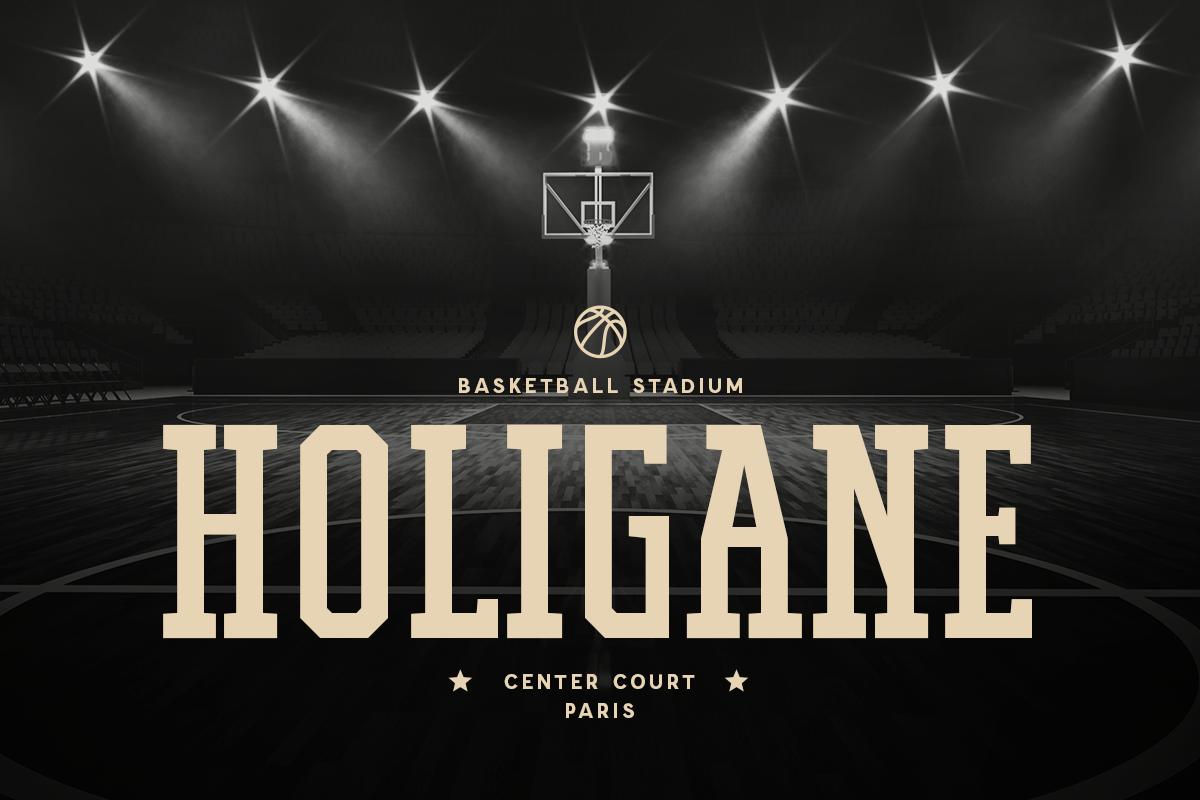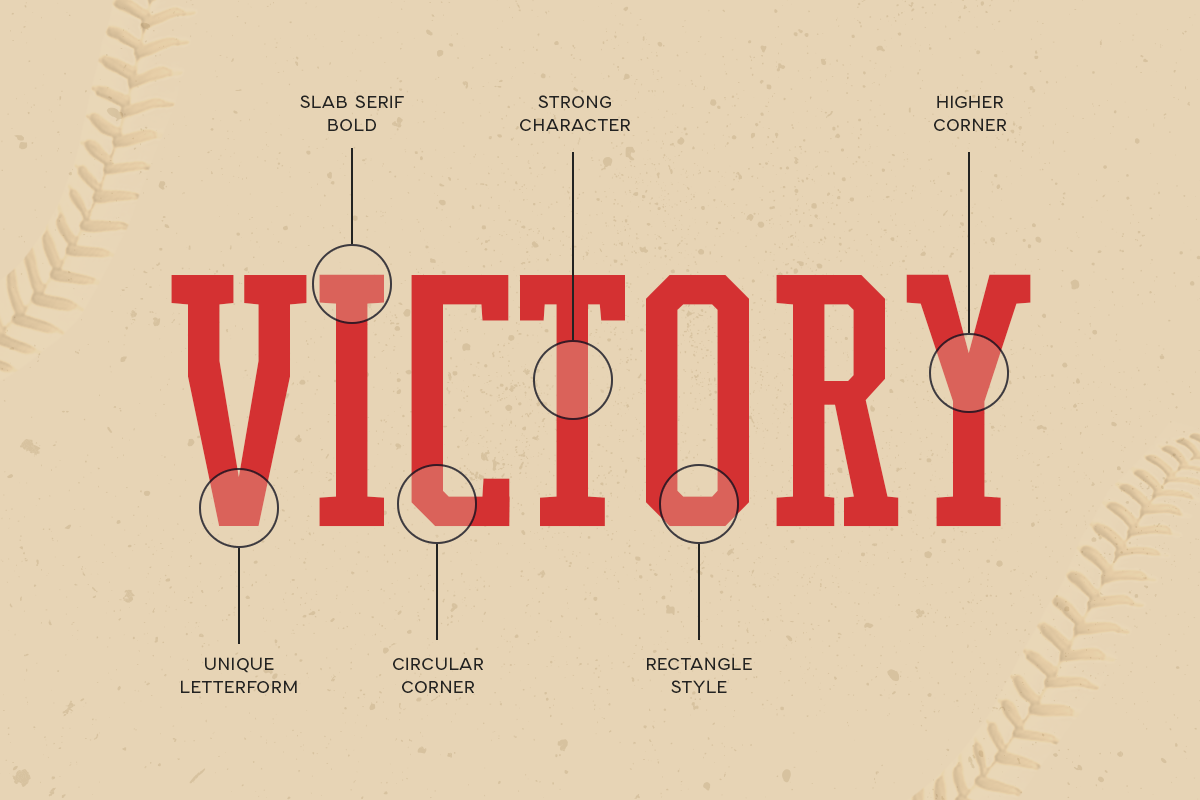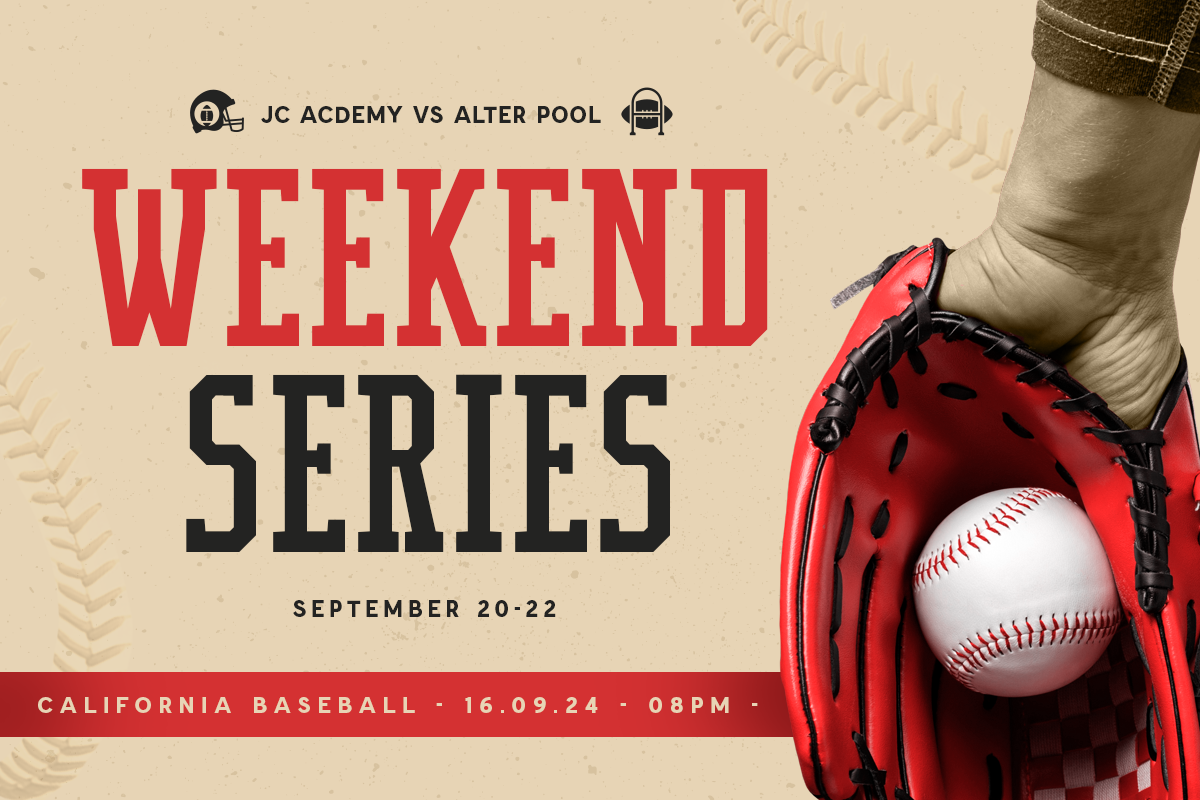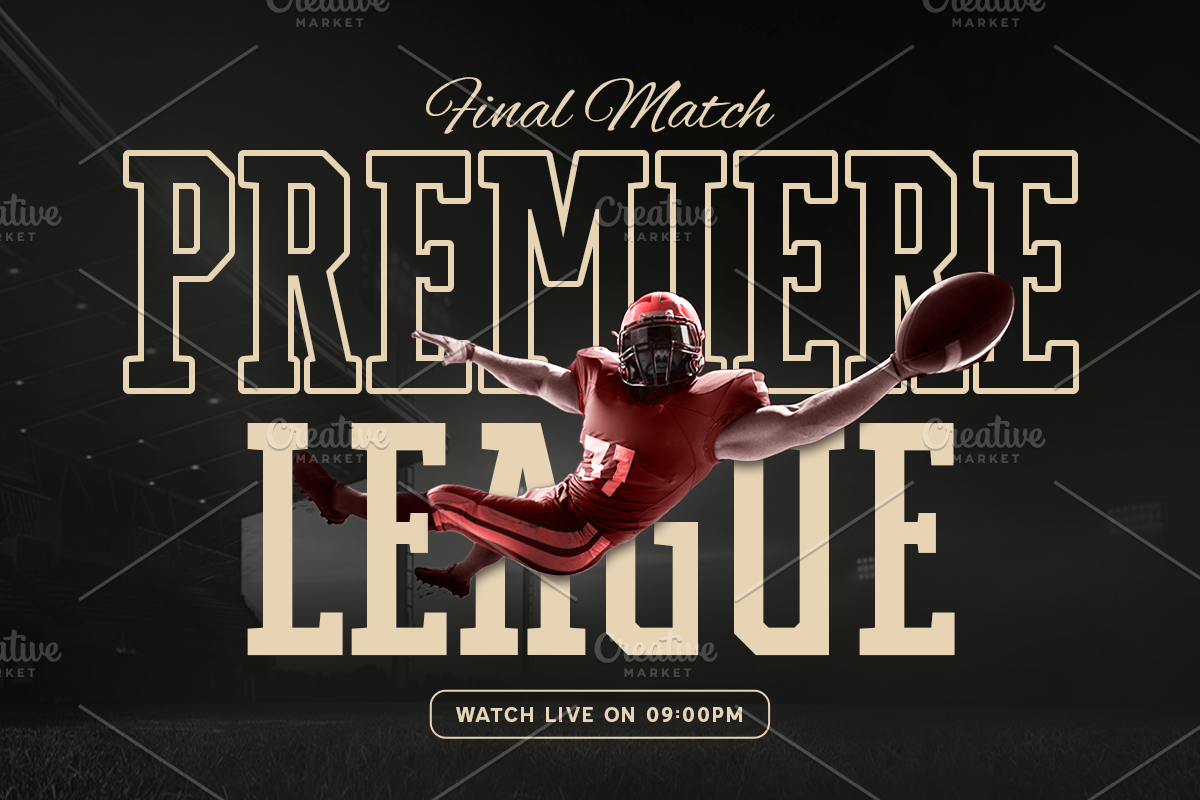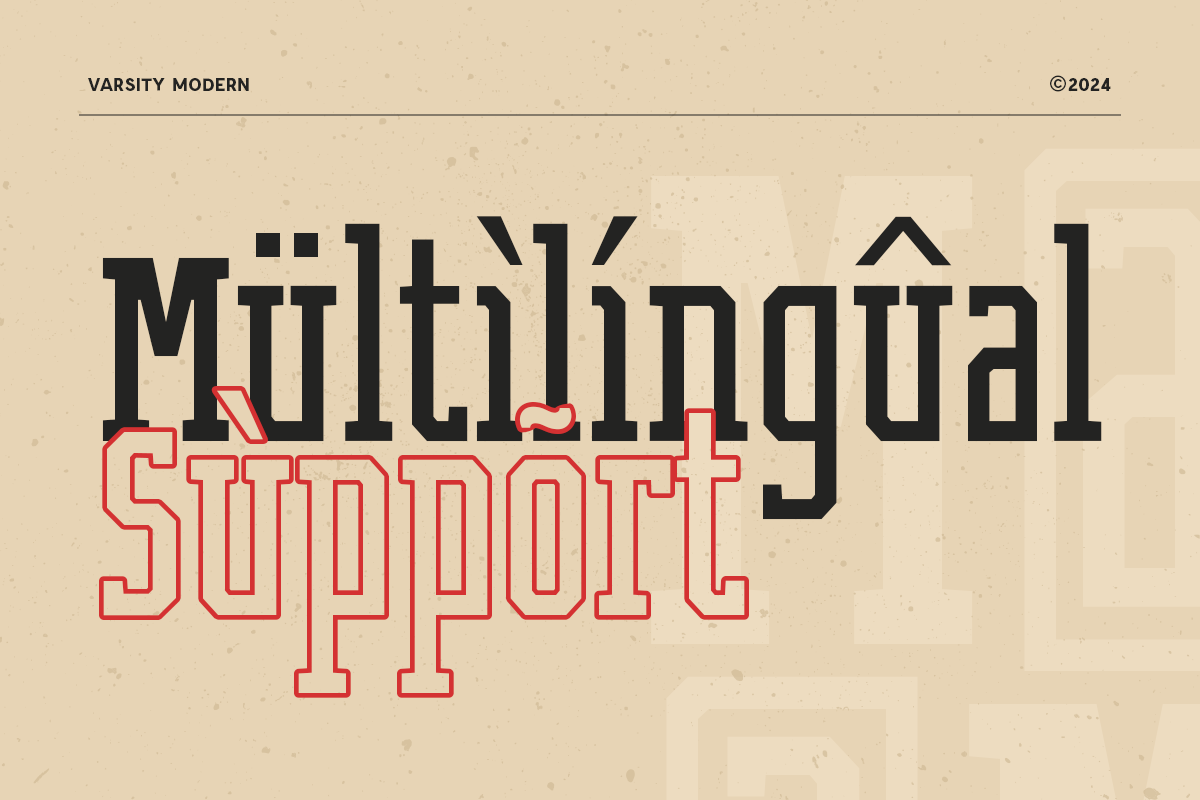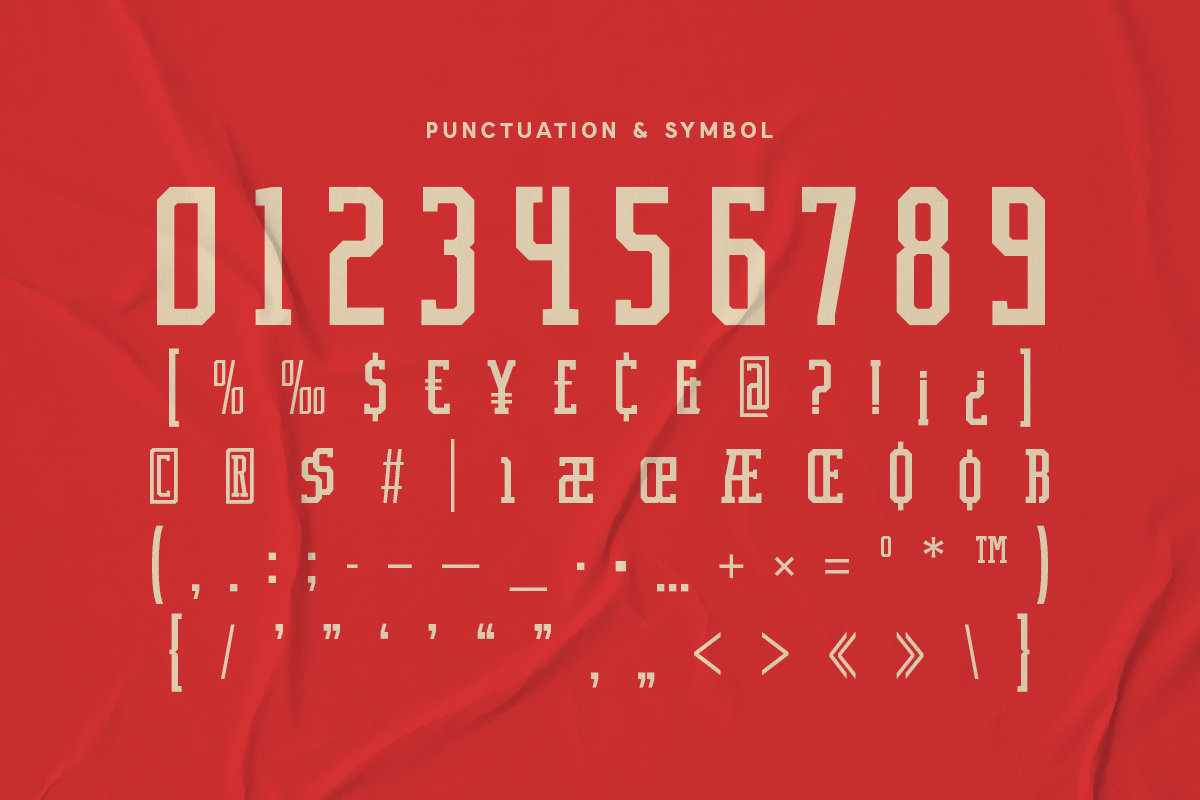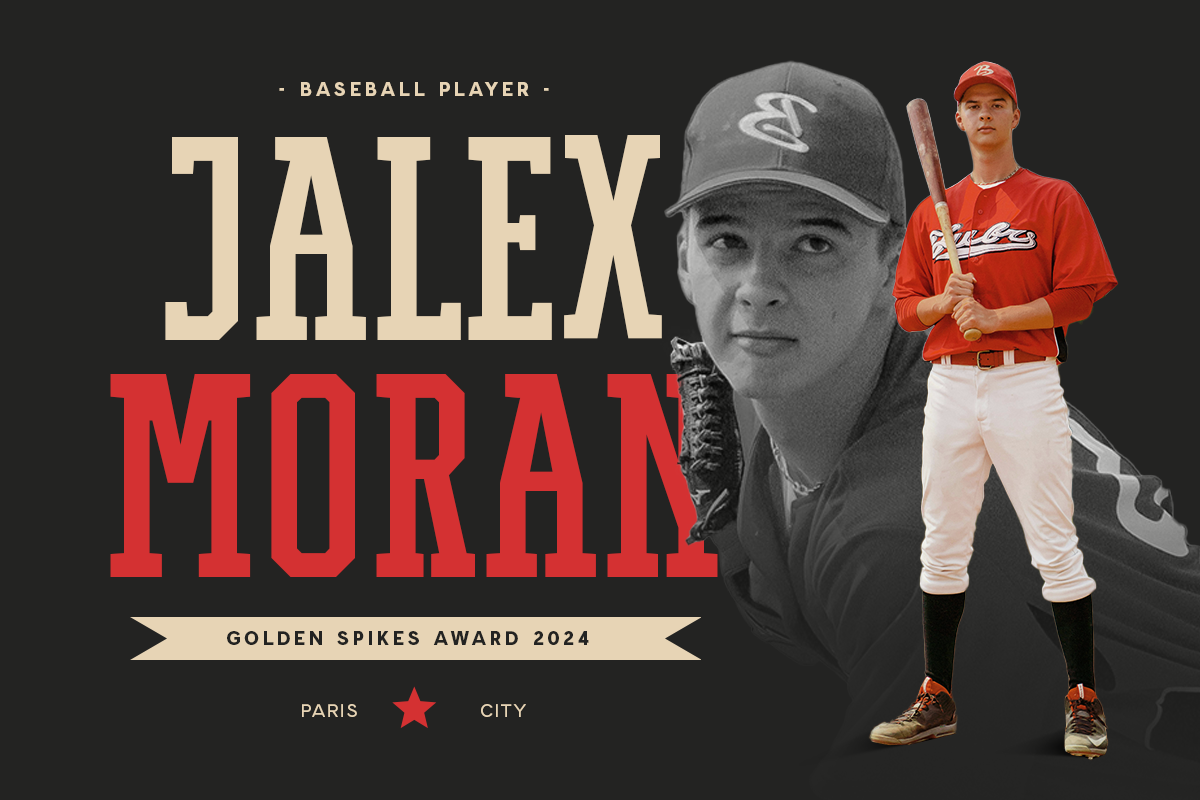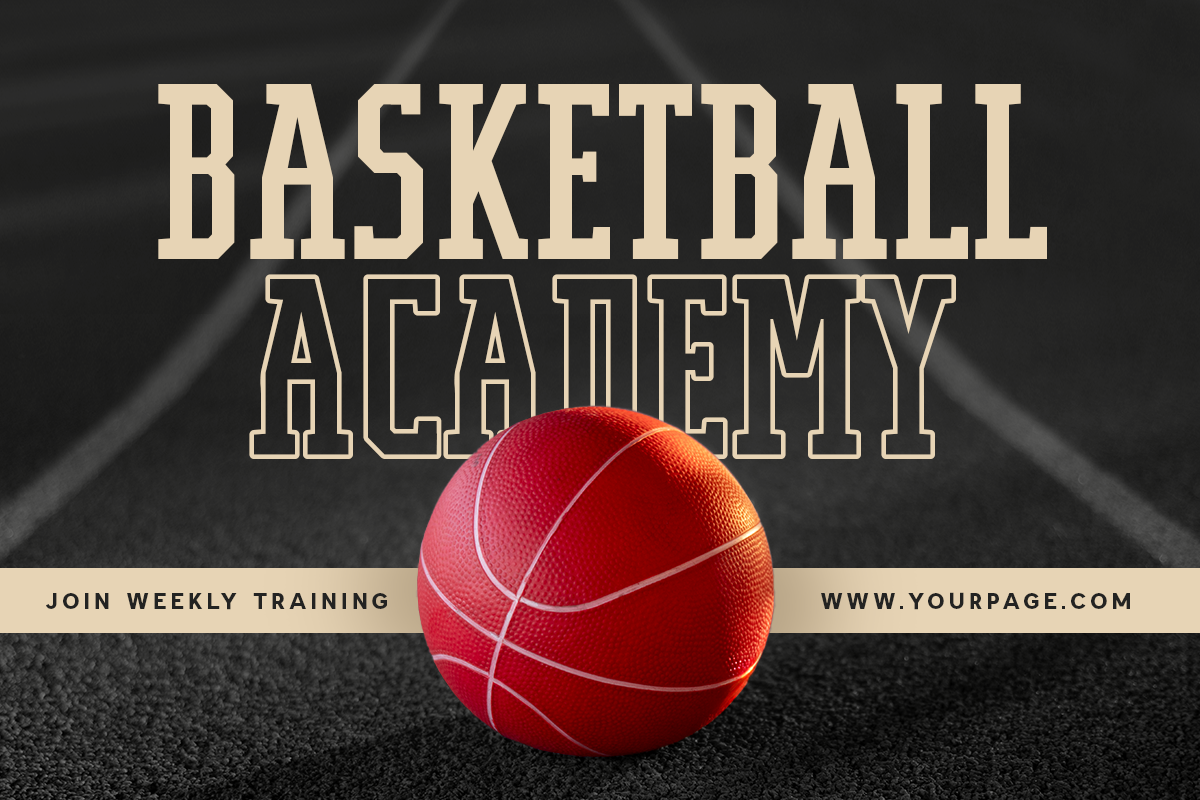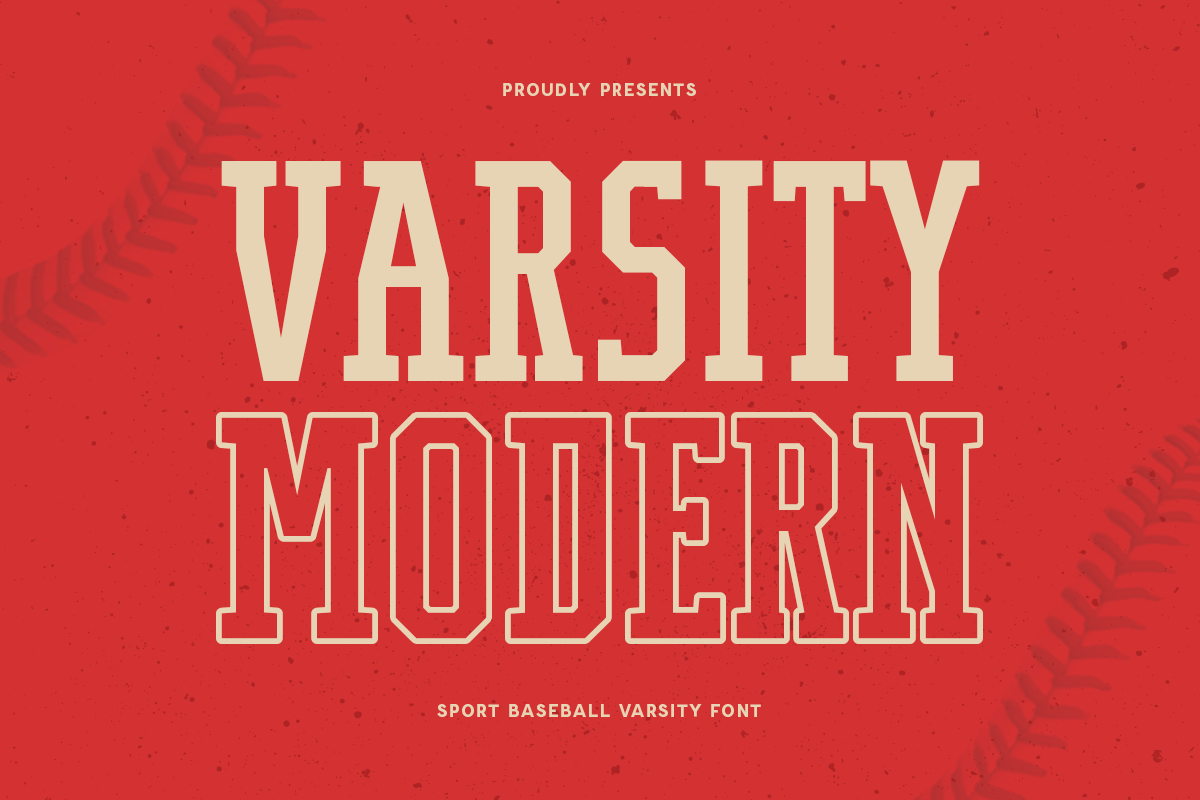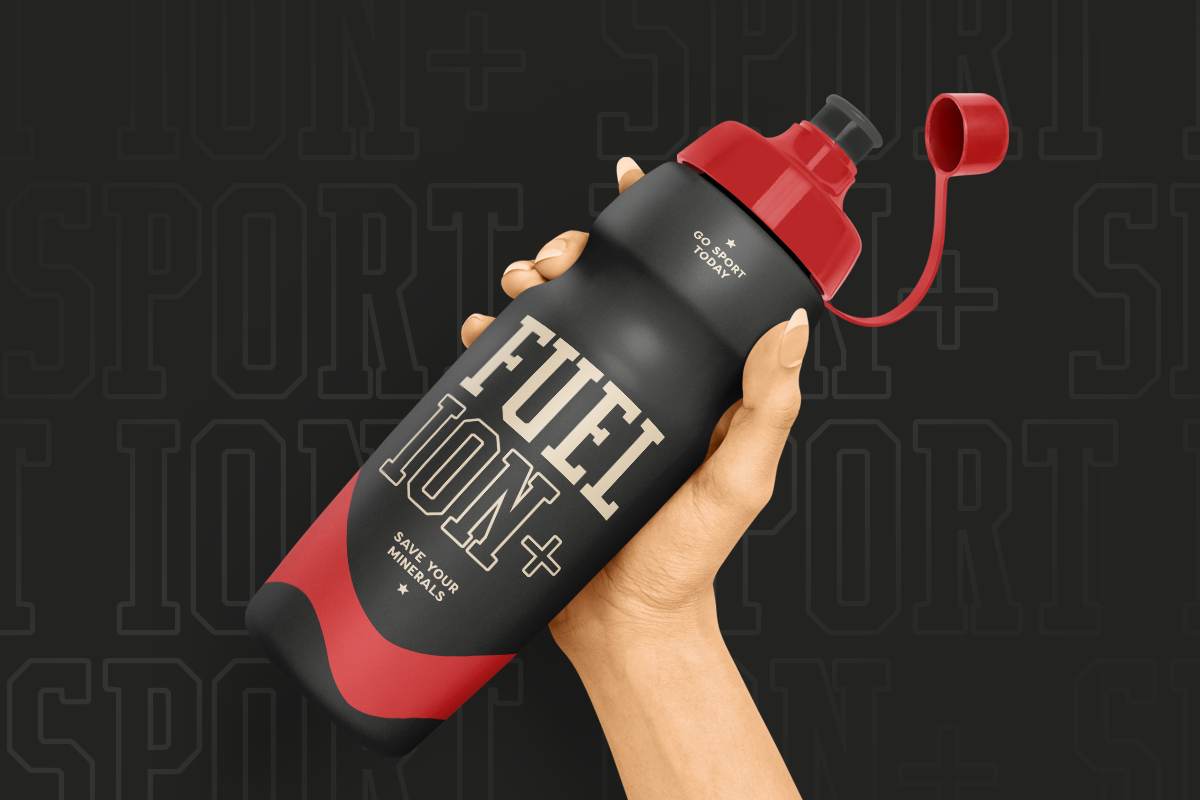
Varsity Modern - Sport Baseball Font
Introducing Varsity Modern, a font that brings the spirit of the game to your designs. Inspired by the bold and dynamic look of varsity sports, Varsity Modern captures the excitement and energy of baseball and other athletic events. Perfect for team branding, sports merchandise, and varsity-themed projects, this font combines classic athletic aesthetics with a modern twist.
Varsity Modern Font Features:
- Athletic Design: Bold and dynamic, ideal for sports and team-related projects.
- Baseball Inspiration: Captures the classic look of baseball and varsity sports.
- Versatile Usage: Great for team logos, sports merchandise, posters, and varsity-themed designs.
- High Impact: Strong and clear letterforms that ensure your message stands out.
- Classic Meets Modern: Combines traditional varsity style with a contemporary touch.
- Inspirational Previews: Includes sample designs to inspire your creativity.
- Team Branding: Create bold and memorable logos for sports teams and clubs.
- Sports Merchandise: Design dynamic apparel, accessories, and gear for fans and players.
- Event Promotion: Develop eye-catching posters and flyers for athletic events and championships.
- Varsity Projects: Add a classic varsity look to yearbooks, school projects, and more.
With Varsity Modern, your designs will capture the spirit and excitement of the game. Whether you're creating team logos, sports merchandise, or varsity-themed projects, Varsity Modern provides the perfect blend of classic athletic style and modern design. Bring your projects to life with Varsity Modern and celebrate the thrill of the game.